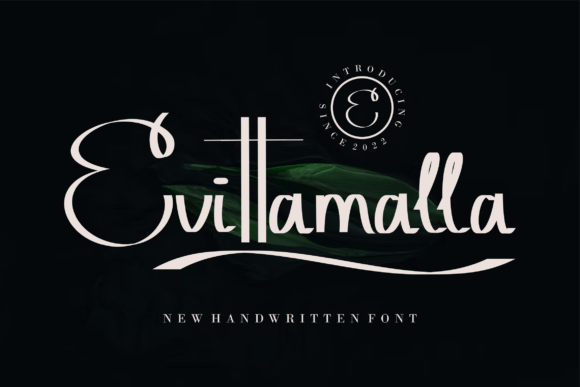
Evittamalla Font: Elevate Your Designs with Elegance and Sophistication
Are you looking for a font that can add a touch of elegance and sophistication to your designs? Look no further than Evittamalla, a stunning script font that is perfect for a variety of applications. From wedding invitations and thank you cards to quotes, greeting cards, logos, and business cards, Evittamalla is the ideal choice for anyone seeking to add a handwritten touch to their designs.
What Makes Evittamalla Font So Special?
Evittamalla is a stylish and incredibly elegant script font that boasts a range of features that set it apart from other fonts. Some of its key features include:
- Elegant and Sophisticated Design: Evittamalla’s design is characterized by its flowing lines, beautiful swashes, and intricate details, making it perfect for designs that require a touch of luxury and sophistication.
- Versatile: This font is incredibly versatile and can be used for a wide range of applications, from wedding invitations and greeting cards to logos and business cards.
- Handwritten Touch: Evittamalla’s script design gives it a warm, handwritten feel that is perfect for adding a personal touch to your designs.
- Easy to Read: Despite its elegant design, Evittamalla is easy to read, making it perfect for use in body text as well as headings and titles.
10 Creative Ways to Use Evittamalla Font
Evittamalla is a versatile font that can be used in a variety of creative ways. Here are 10 ideas to get you started:
- Wedding Invitations: Evittamalla is perfect for wedding invitations, adding a touch of elegance and sophistication to your special day.
- Thank You Cards: Use Evittamalla to add a personal touch to your thank you cards and show your appreciation in style.
- Quotes and Posters: Evittamalla’s elegant design makes it perfect for use in quotes and posters, adding a touch of luxury to your message.
- Greeting Cards: From birthday cards to holiday cards, Evittamalla is the perfect choice for adding a touch of elegance to your greetings.
- Logos: Evittamalla’s unique design makes it perfect for use in logos, adding a touch of sophistication to your brand.
- Business Cards: Use Evittamalla to add a touch of elegance to your business cards and make a lasting impression.
- Social Media Graphics: Evittamalla is perfect for use in social media graphics, adding a touch of luxury to your posts and stories.
- Packaging Design: Use Evittamalla to add a touch of elegance to your packaging design and make your products stand out.
- Signage: Evittamalla’s bold design makes it perfect for use in signage, adding a touch of sophistication to your message.
- Stationery: From letterheads to notebooks, Evittamalla is the perfect choice for adding a touch of elegance to your stationery.
Tips and Tricks for Using Evittamalla Font
To get the most out of Evittamalla, here are a few tips and tricks to keep in mind:
- Use it Sparingly: Evittamalla is a bold font, so use it sparingly to avoid overwhelming your design.
- Experiment with Colors: Evittamalla looks great in a range of colors, so don’t be afraid to experiment and find the perfect shade for your design.
- Pair it with a Sans Serif Font: For body text, pair Evittamalla with a sans serif font to create a beautiful contrast.
- Adjust the Tracking: Adjust the tracking to create a more open and airy feel, or a tighter and more compact feel.
Evittamalla Font Details
Here are the key details about Evittamalla font:
- Font Type: Script
- Font Style: Elegant, Sophisticated
Evittamalla font is a stunning script font that is perfect for adding a touch of elegance and sophistication to your designs. With its elegant design, versatility, and ease of use, it’s the perfect choice for anyone seeking to elevate their designs. Whether you’re a designer, a small business owner, or just someone looking to add a personal touch to your projects, Evittamalla is sure to impress.